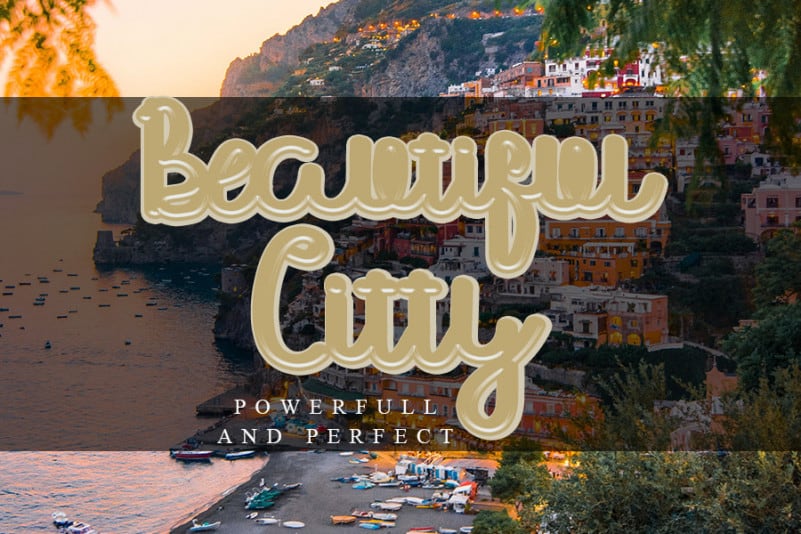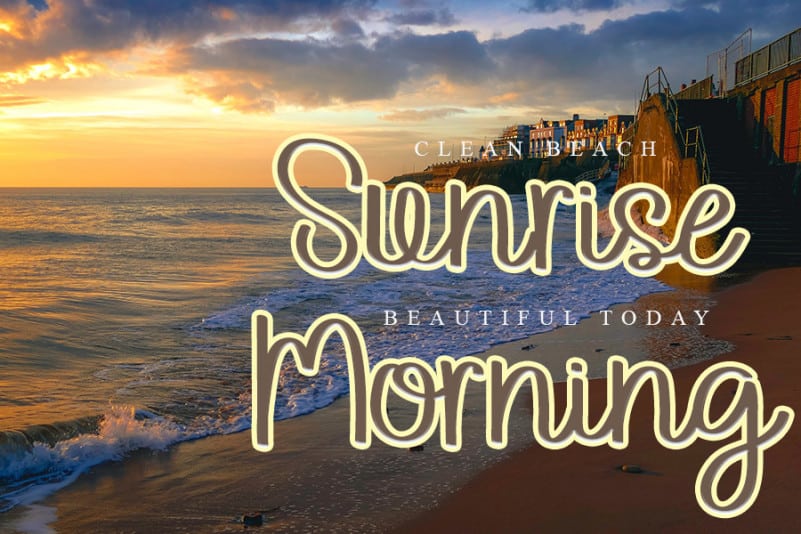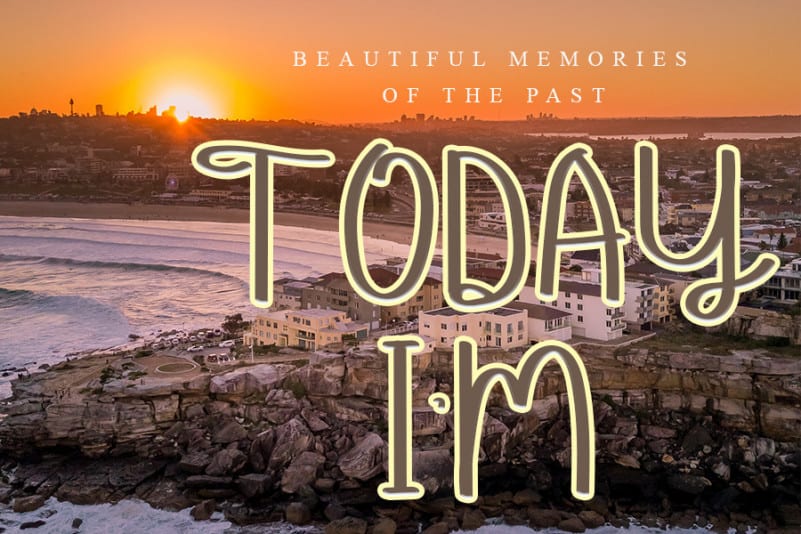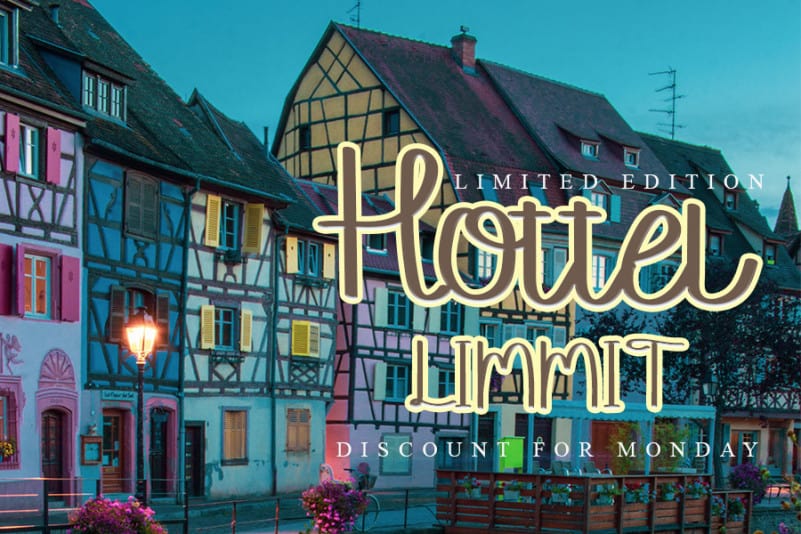
WoW Boston Script Font
WoW Boston Script Font is a great Brush Font. It maintains its classy calligraphic influences while feeling contemporary and fresh. This versatility will appeal to a wide range of crafty ideas, from letterheads and titles to stationery.